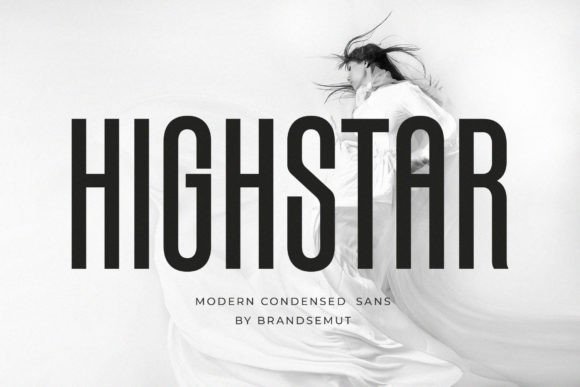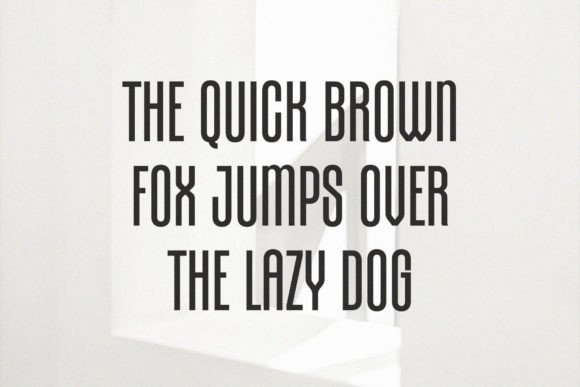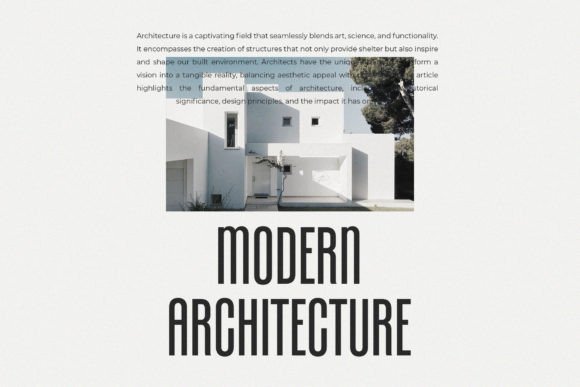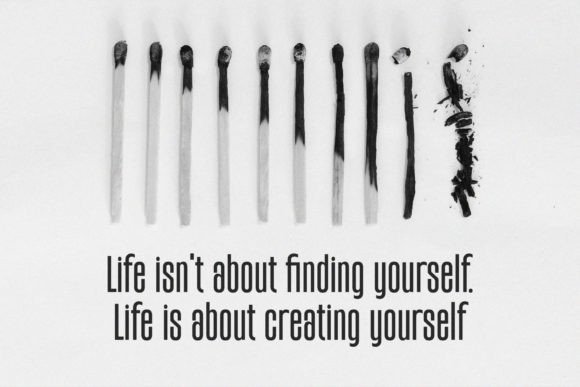
Highstar Font: Modern, Bold Sans Serif for Logo Design & Branding
About the Highstar Font
Introducing the Highstar Font, a beautifully crafted typeface designed to elevate your creative projects. Introducing Highstar Modern Condensed Sans
Highstar is a modern and simple font, best used as a display for headings, logos, branding, magazines, product packaging, and invitations. Highstar comes with clean lines and smooth curves giving any project an extra touch of class.
Highstar’s condensed nature and clean lines make it ideal for headlines, logos, and short, impactful statements. It projects a modern, confident personality, suitable for brands aiming for a sophisticated and minimalist aesthetic. Avoid using it for large blocks of body text; its condensed width makes extended reading difficult.
Pairing Highstar with a neutral sans-serif like Lato for body copy creates a strong, balanced design. For a more playful feel, consider pairing it with a rounded script font such as Pacifico for secondary text elements. Conversely, a classic serif like Garamond provides a refined contrast, enhancing Highstar’s modern elegance.
Highstar’s strong, yet refined personality works exceptionally well for projects requiring a touch of luxury or modern simplicity—think high-end product packaging, minimalist branding, or sophisticated magazine layouts.
Highstar Font Usage Examples
Highstar Font Example